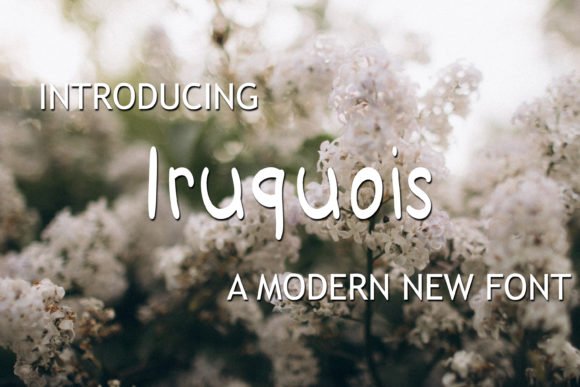
The Perfect Font to Elevate Your Creative Vision
Remember that moment when a spark of creativity hits you, and you can’t wait to bring your idea to life? For many designers, it’s the thrill of experimenting with new typography that sets their imagination ablaze. And what’s a better way to infuse personality into your designs than with a beautiful, handwritten font?
Enter Iruquois Font, a stunning and versatile handwritten font that can elevate any project to new heights. Its minimal and neat design makes it a perfect match for a wide range of creative endeavors, from branding and advertising to digital art and even book covers. With Iruquois Font, you can add a touch of elegance and sophistication to your work, making it stand out in a crowded market.
Iruquois Font Key Features
- Font Family: Iruquois Font is a sans-serif font family designed for various digital applications.
- Font Size: The font family includes various weights and styles, ranging from 10pt to 72pt, making it suitable for a wide range of applications.
- Unique Characteristics: Iruquois Font features a unique blend of modern and minimalist design elements, making it an excellent choice for contemporary branding and design projects.
Iruquois Font Review
Overall, I found Iruquois to be a decent font option for certain design applications. Here’s what I think:
- Unique aesthetic: Iruquois has a distinctive look that can add a touch of elegance to designs. Its combination of rounded and angular elements makes it stand out.
- Good for body text: While it’s not ideal for headings, Iruquois works well for body text due to its readability and moderate x-height.
- Customizable: Iruquois comes in a range of weights, which allows designers to adjust the font’s appearance to suit their needs.
- Limited legibility at smaller sizes: Iruquois can become difficult to read when used at font sizes below 14pt.
- Lack of versatility: While it’s great for body text, Iruquois may not be the best choice for headings or titles due to its lack of boldness and visual impact.
- Not ideal for long blocks of text: The font’s unique aesthetic can become overwhelming when used for extended periods.
In conclusion, Iruquois is a solid font option for designers who want to add a touch of sophistication to their designs. However, it’s not without its limitations, and designers should carefully consider the context in which they’ll be using it.
The Iruquois Font is ideal for creating unique, hand-drawn text effects. Use it for:
– Designing invitations, posters, and social media graphics.
– Adding a personal touch to digital documents and presentations.
– Creating custom logos and branding materials.
– Experimenting with mixed-media art and typography.